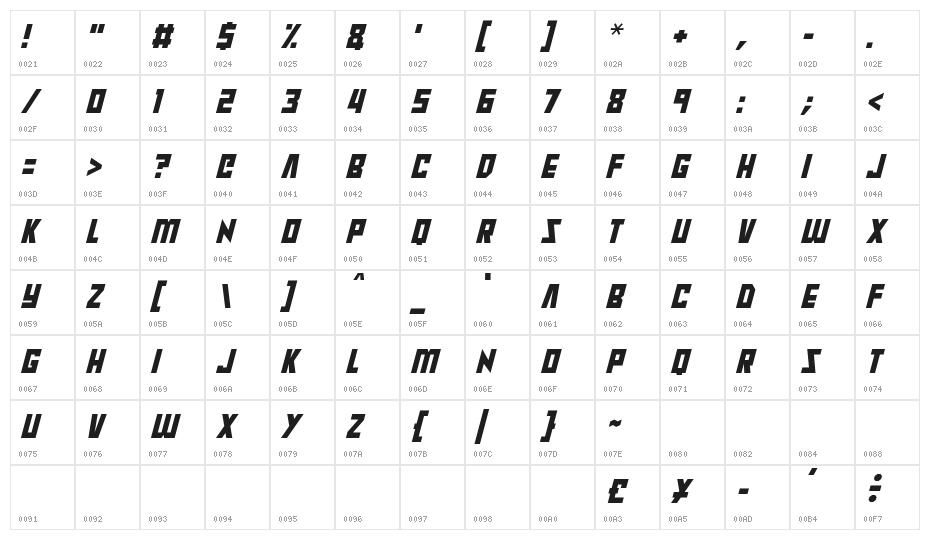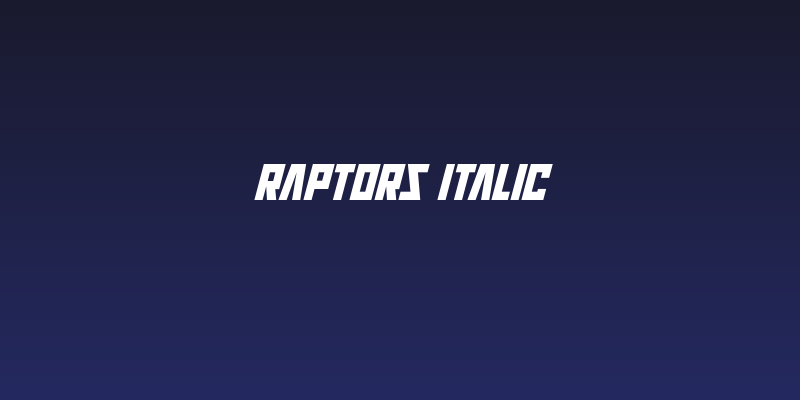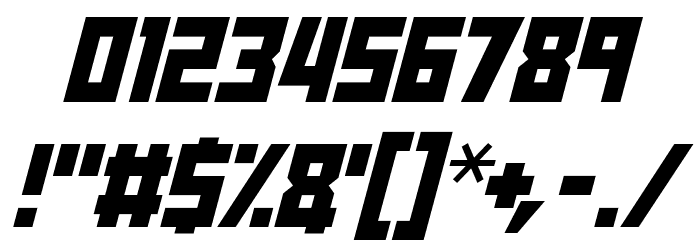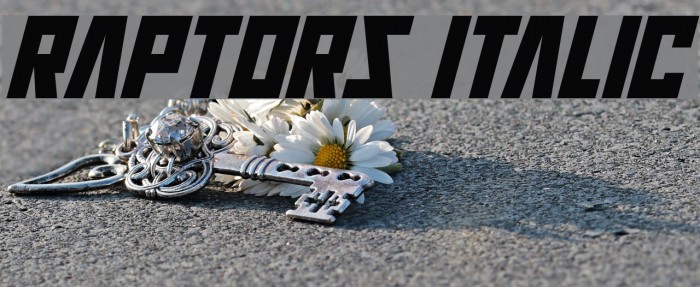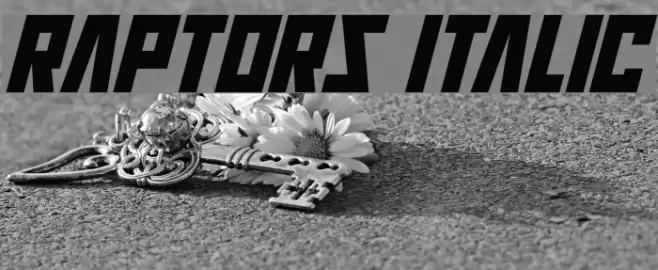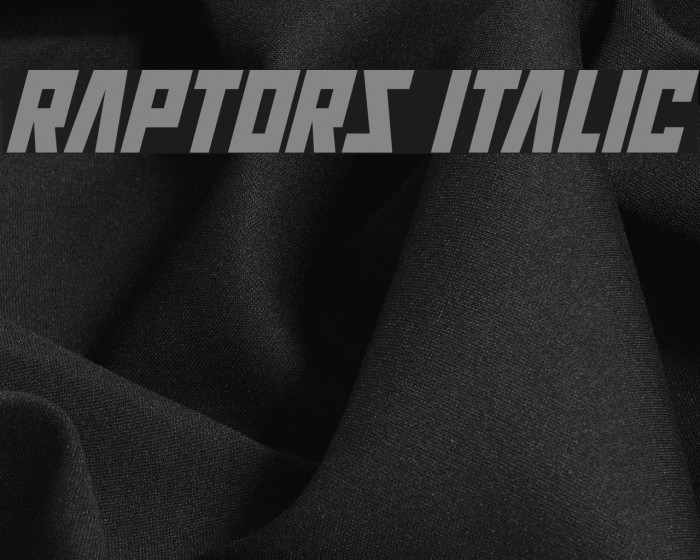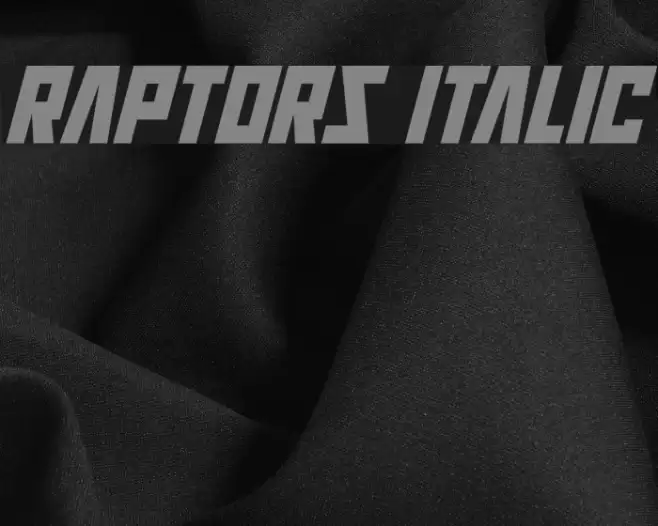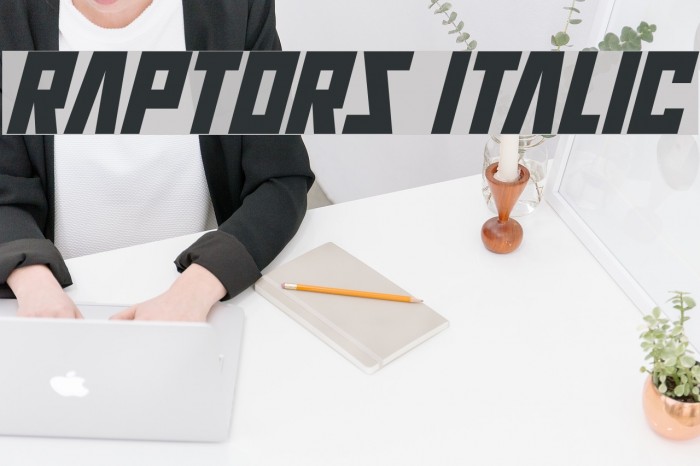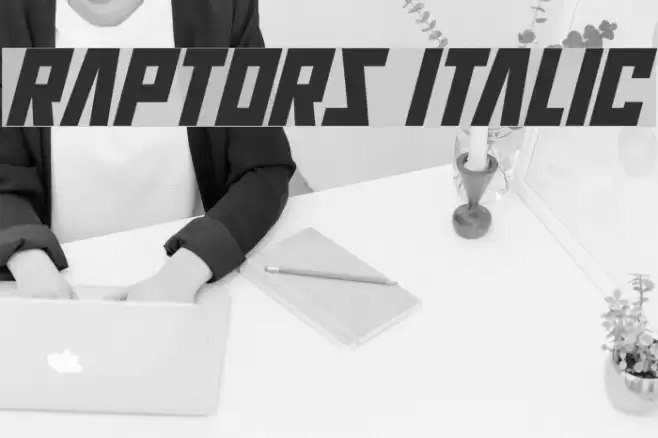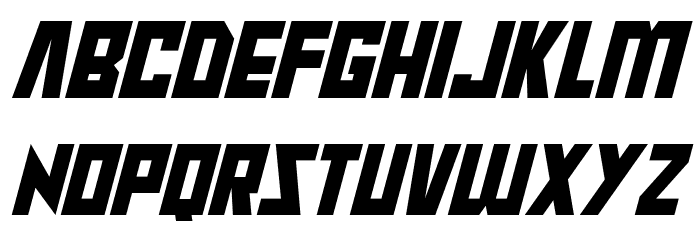
Raptors Italic Font
Raptors Italic Description
This font features a bold and dynamic style with a strong italic slant, giving it a sense of motion and energy. The characters are angular and geometric, with sharp edges and a futuristic appearance. The uppercase and lowercase letters maintain a consistent design, while the numbers and special characters complement the overall aesthetic. The font's bold weight and italic style make it stand out, suitable for attention-grabbing designs.
| Proposed Projects | Ideal for sports branding, dynamic posters, video game titles, and futuristic-themed designs. |